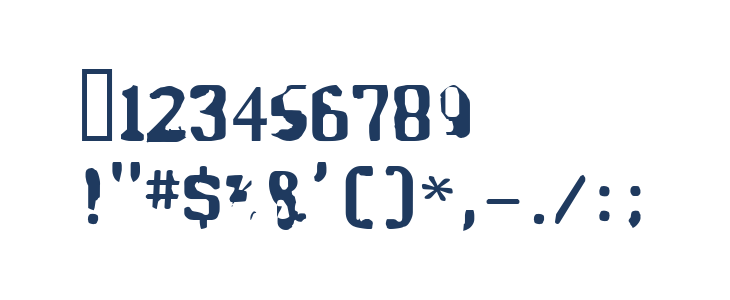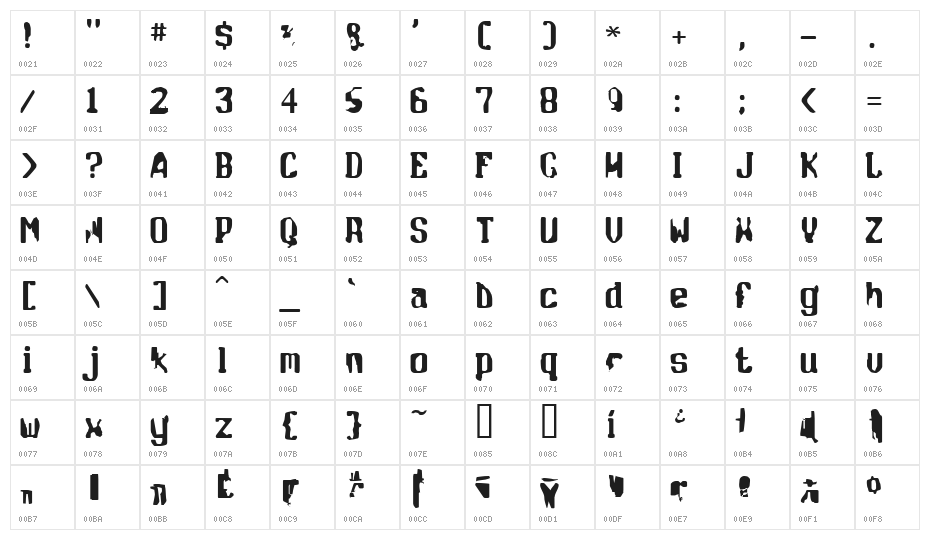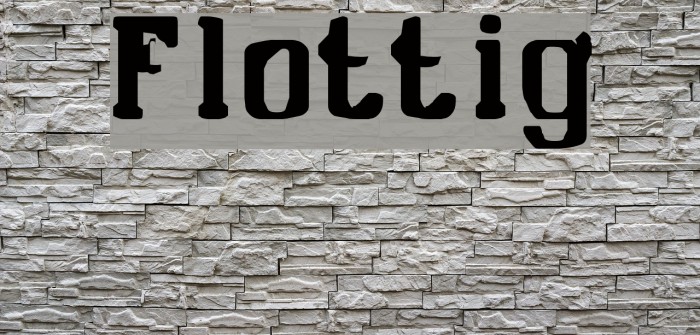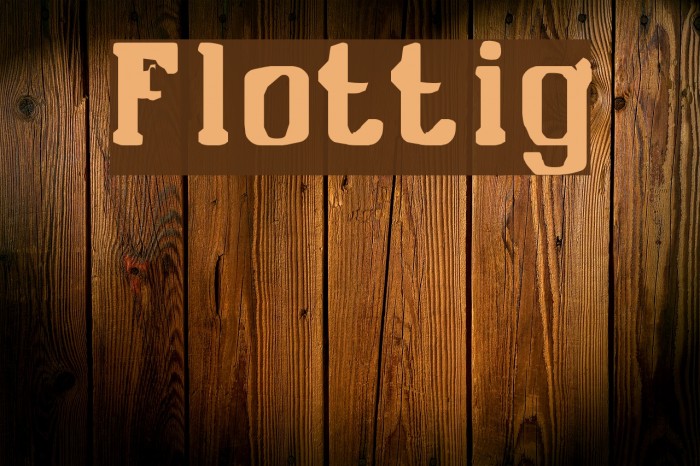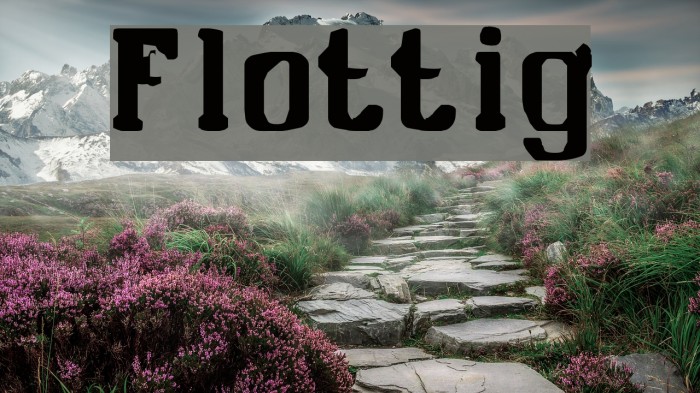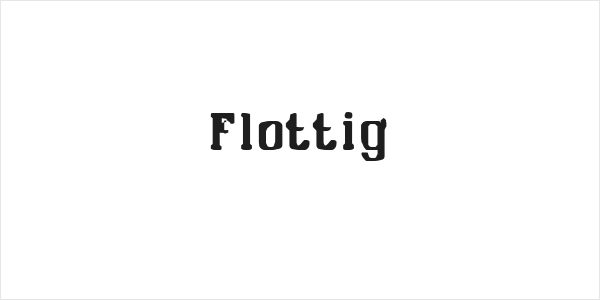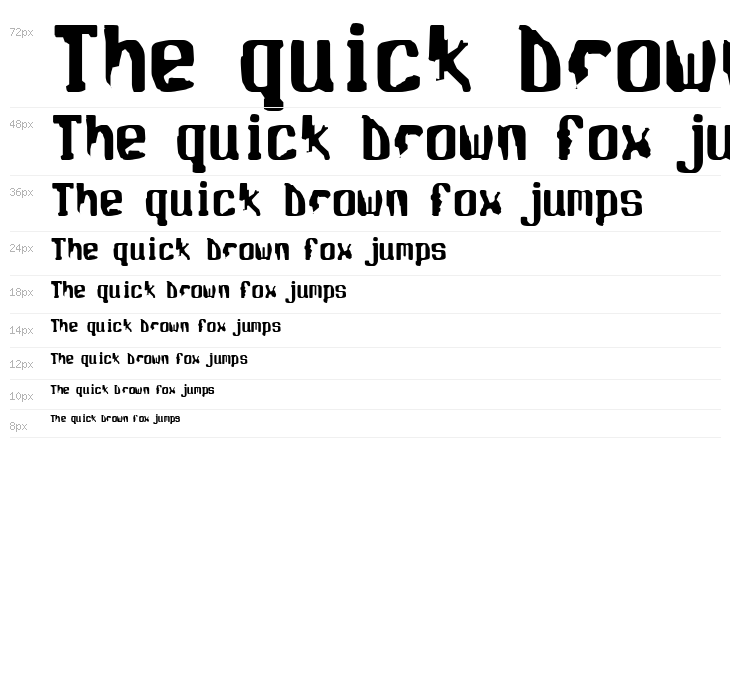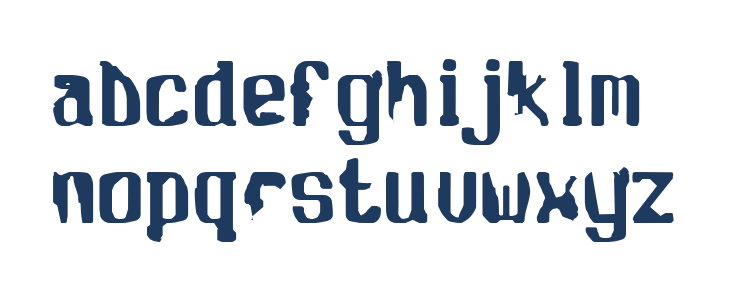
Flottig Font
Flottig Description
This font features a bold and rugged design with a distressed, grunge-like appearance. The characters have an uneven texture, giving them a worn and weathered look. The uppercase and lowercase letters maintain a consistent style, with sharp edges and irregular shapes that add to the font's unique character. Numbers and special characters follow the same design principles, ensuring a cohesive appearance across all glyphs. The font's boldness and distinctive style make it stand out, making it ideal for projects that require a strong visual impact.